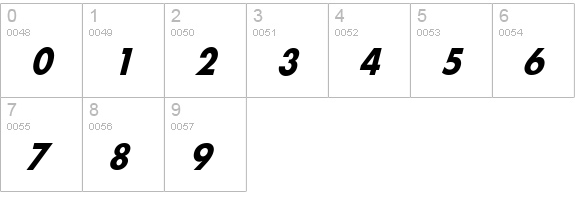
FuturaCndObl-Bo Font Details
FuturaCndObl-Bo is a modern and sleek font that exudes sophistication and elegance. Its condensed and oblique design adds a unique twist to the classic Futura typeface, making it perfect for projects that require a contemporary touch. The bold weight of this font ensures that your message will stand out, while the subtle oblique angle adds a touch of dynamism and movement. The best part about FuturaCndObl-Bo is that it is available for free download at FontsMarket.com. This means that you can easily access this stylish font and incorporate it into your designs without any cost. Whether you're working on branding materials, website design, or any other project that requires a touch of modernity, FuturaCndObl-Bo is the perfect choice. Download it today and elevate your designs with this striking and versatile typeface.